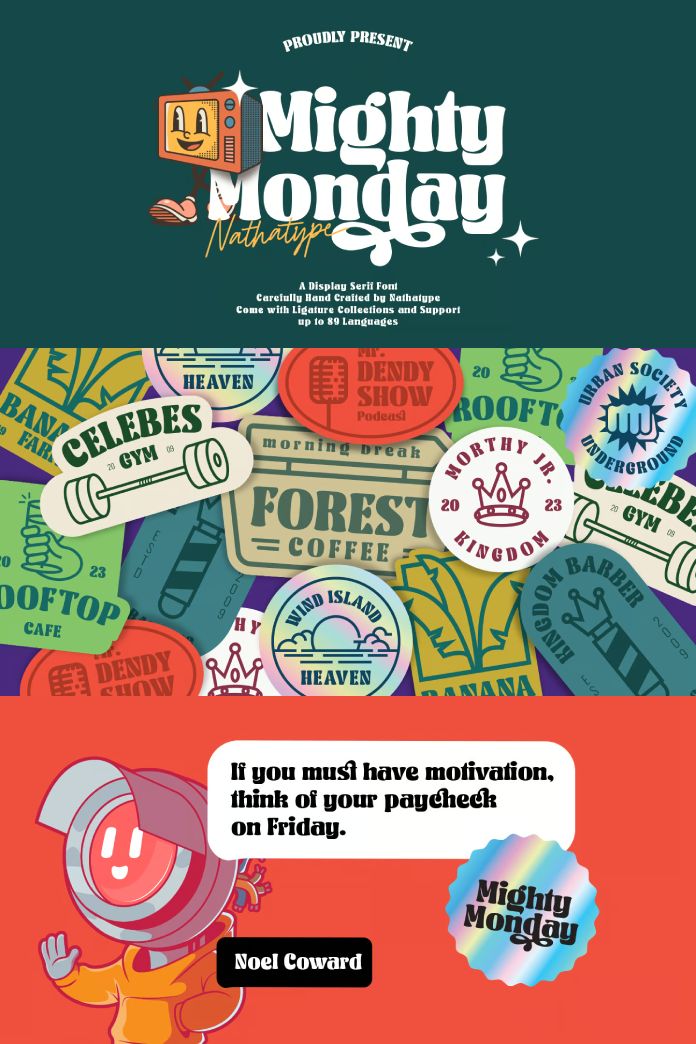
Introducing Mighty Monday, an adorable serif display font that is sure to bring a smile to your designs. With its cute and playful letterforms and pleasantly thick weight, this typeface exudes a delightful and charming vibe. The font’s unique feature lies in its endearing serifs, adding a touch of whimsy and character to every letter. The substantial weight enhances its boldness, creating a visual impact that makes it perfect for projects that demand a standout and attention-grabbing typographic choice.
Inspired by the charm of playful design, Mighty Monday captures the essence of cuteness and joy. The carefully crafted letterforms exude a friendly and approachable feel, making them ideal for designs aimed at children or any audience that appreciates a lighthearted and cheerful aesthetic. Infusing your designs with a sense of fun and playfulness, this font maintains legibility and clarity, even with its thick weight. Each letter retains its distinctive characteristics, ensuring that your message is easily understood.
Whether used in large text sizes or any other application, Mighty Monday is highly legible and offers a variety of available features to enhance your creative endeavors.